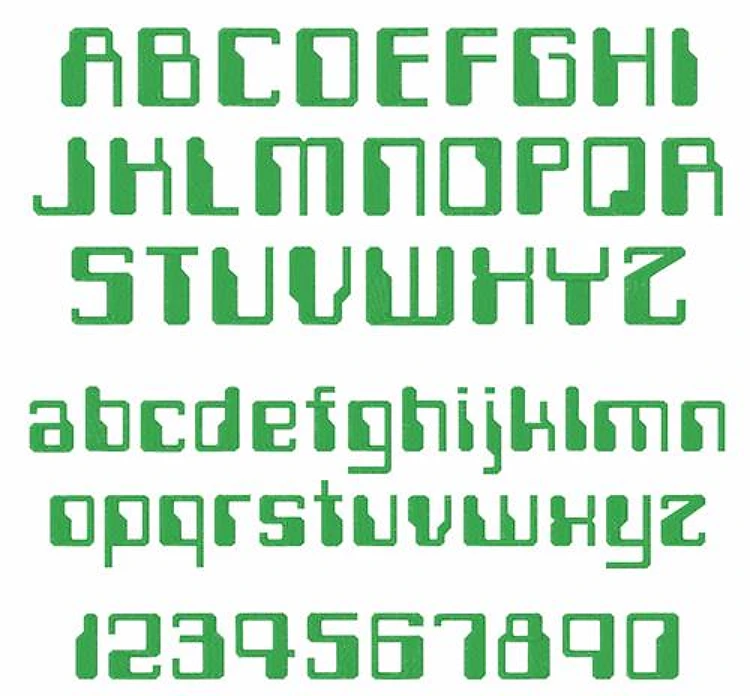
Concord Collections is happy to present Green Screen Embrilliance Embroidery Font - Block Style Fill Lettering - BX font machine embroidery font which has Bold block design in a vibrant green, this machine embroidery font is suited for athletic apparel and promotional gear. Available in Embrilliance format, perfect for adding a standout touch to your projects. included. If you would like to view more embroidery fonts and alphabets please search our embroidery fonts page.
Green Screen Embrilliance Embroidery Font - Block Style Fill Lettering - BX font